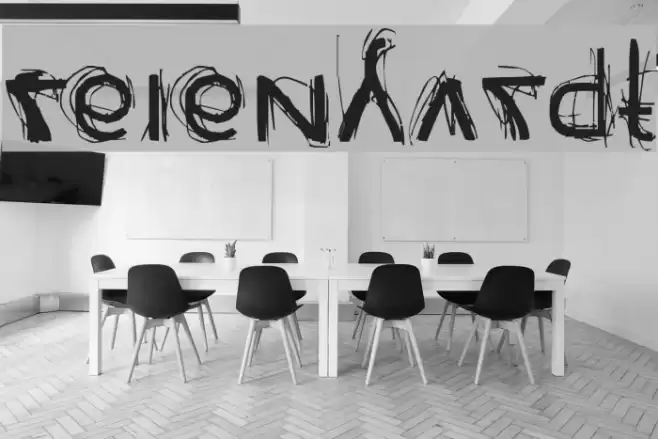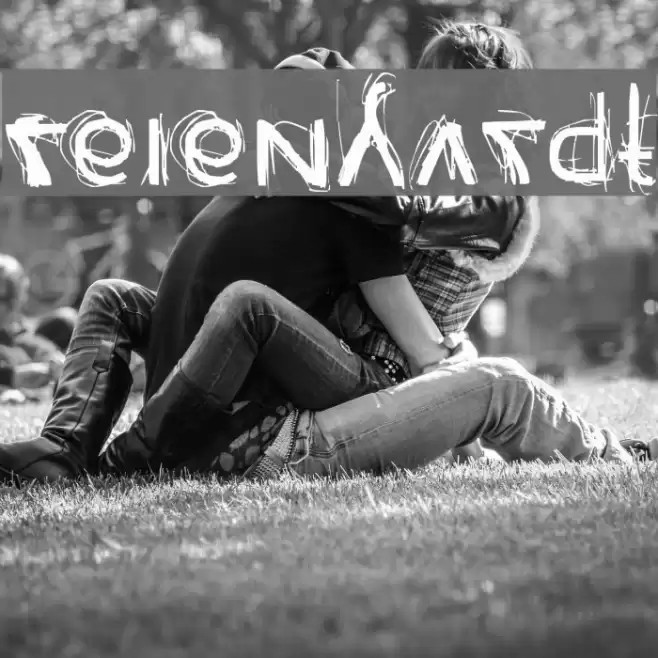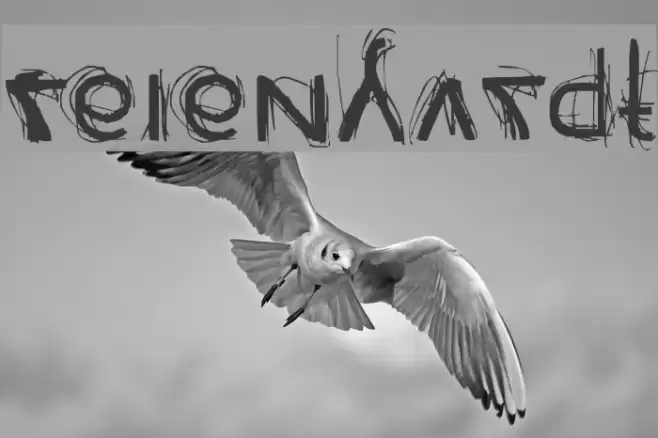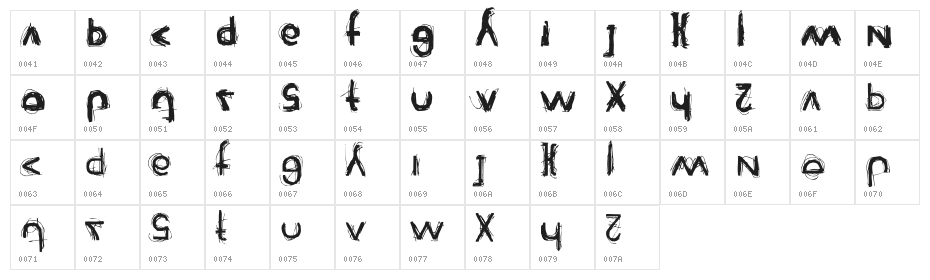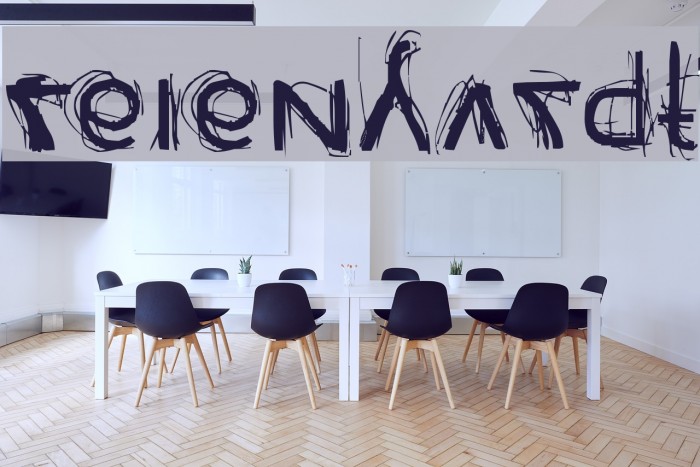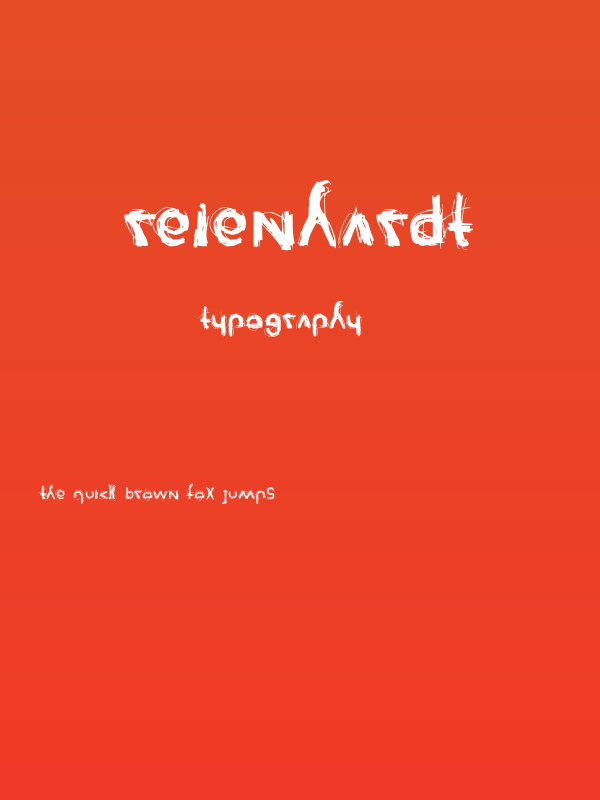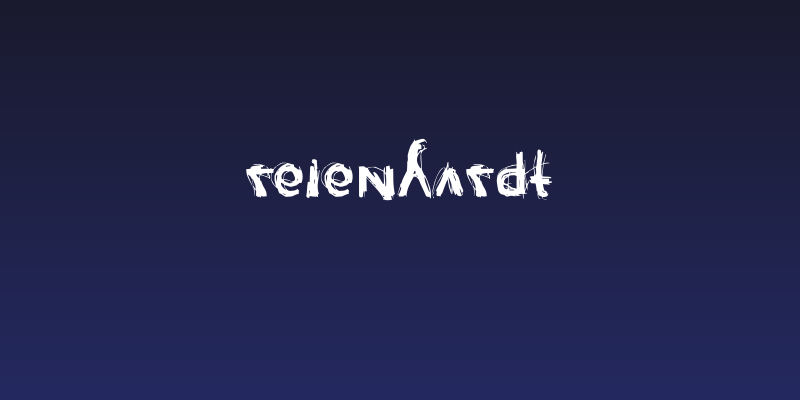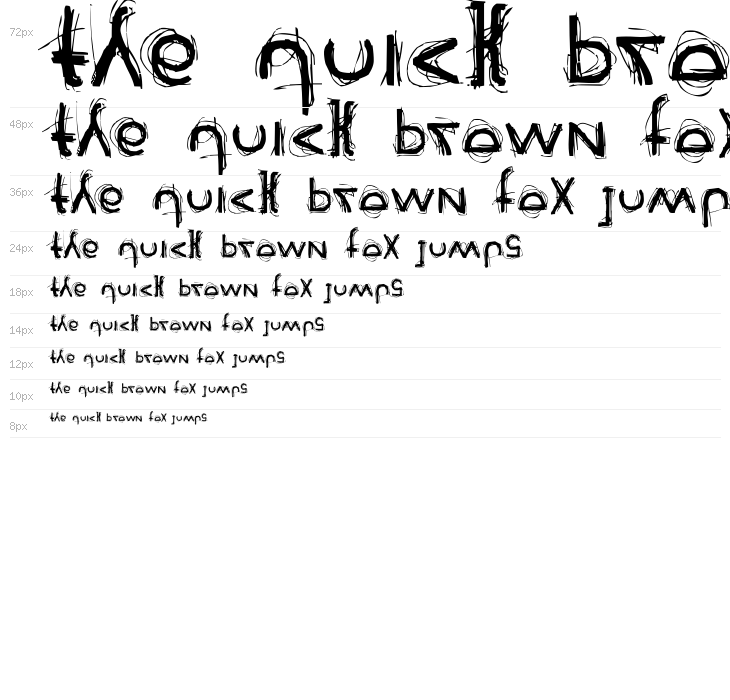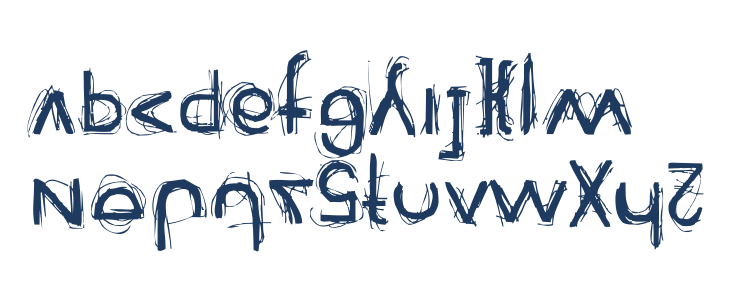
Reienhardt Font
Reienhardt Description
This font exhibits a highly expressive and chaotic style, characterized by its rough, hand-drawn appearance. The letters are irregular and dynamic, with strokes that vary significantly in thickness, giving it a raw and energetic feel. The uppercase and lowercase letters share a similar aesthetic, with exaggerated curves and angles that create a sense of movement. The font lacks traditional uniformity, making it stand out as a bold statement piece. It is not suitable for body text due to its complexity and potential readability issues, but it excels in creating impactful headlines or artistic designs.
A chaotic, hand-drawn font with irregular strokes and dynamic movement from Handwritten fonts.
- Proposed Projects: Ideal for artistic projects, album covers, posters, or any design needing a bold, expressive touch.
- Character Spacing: Tight
- Use Case: Headlines, Artistic designs, Posters